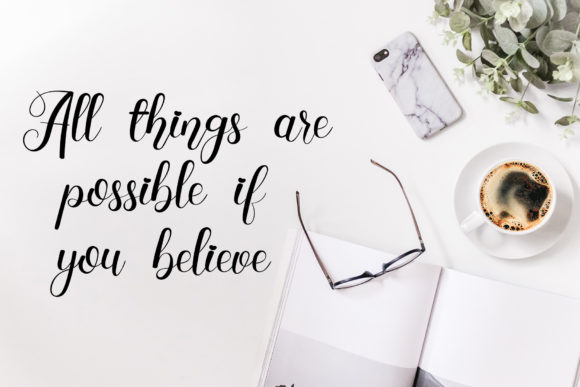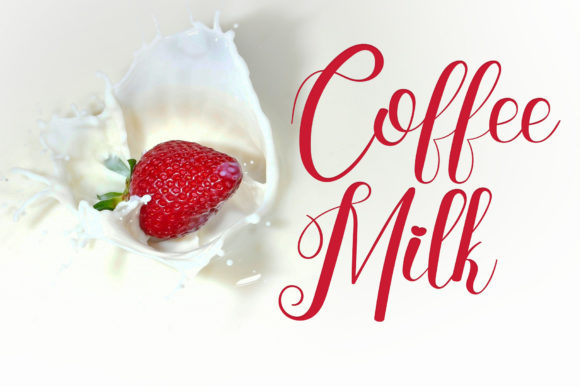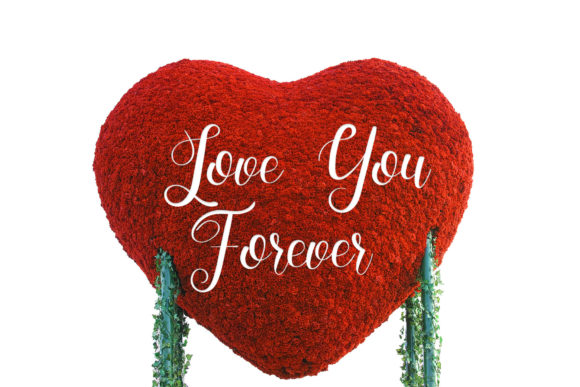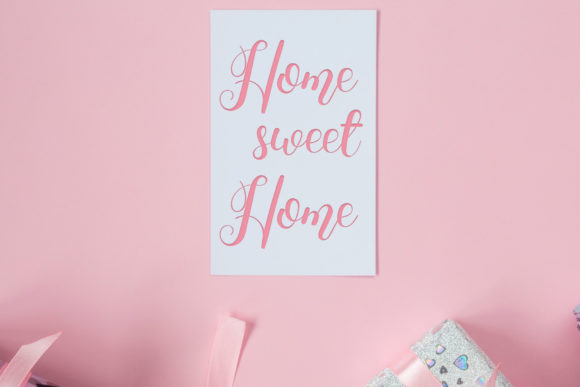
Christmas Signature Font
About Christmas Signature Font
Christmas Signature is an elegant script font with a contemporary atmosphere and impeccable form, inspired by timeless classic calligraphy. Not too thin and not too thick, balanced and varied, this font was designed to enhance the beauty of your projects.